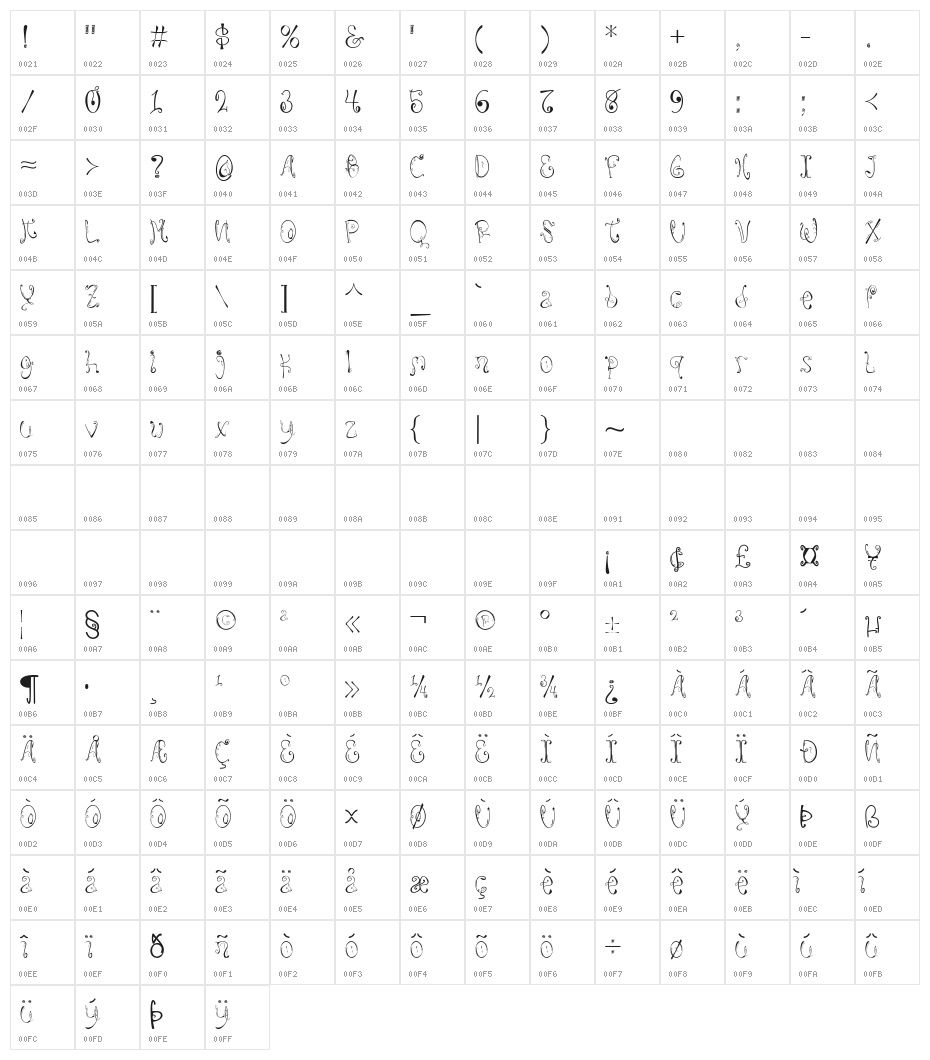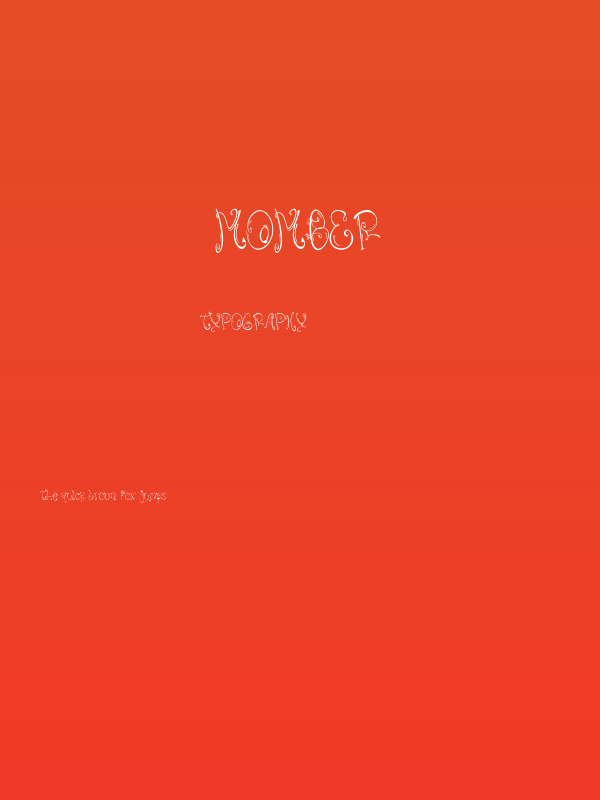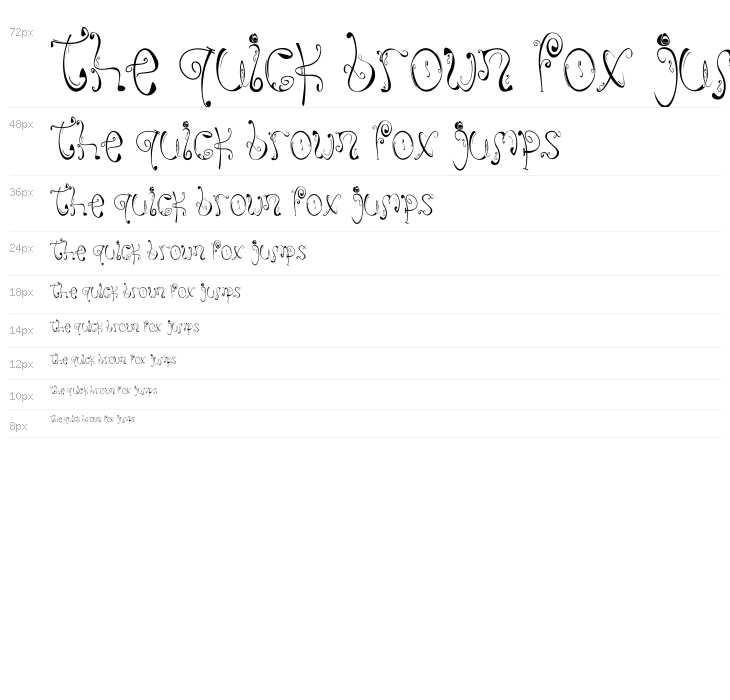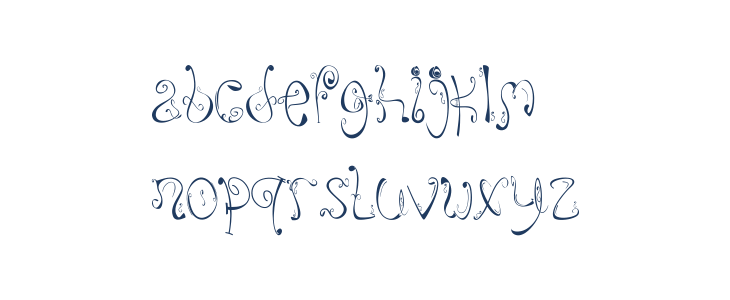
MombeR Font
This font features an ornate and whimsical design, characterized by its decorative swirls and curls that embellish each letter. The uppercase and lowercase letters are consistently adorned with intricate details, giving the font a playful and artistic flair. The numbers and special characters follow the same decorative style, ensuring a cohesive look across all characters. The overall appearance is both elegant and fanciful, making it suitable for creative and expressive design projects.
Use CaseHeadlines, Logos, Artistic projects
Proposed ProjectsIdeal for invitations, greeting cards, artistic posters, and branding that requires a playful and elegant touch.